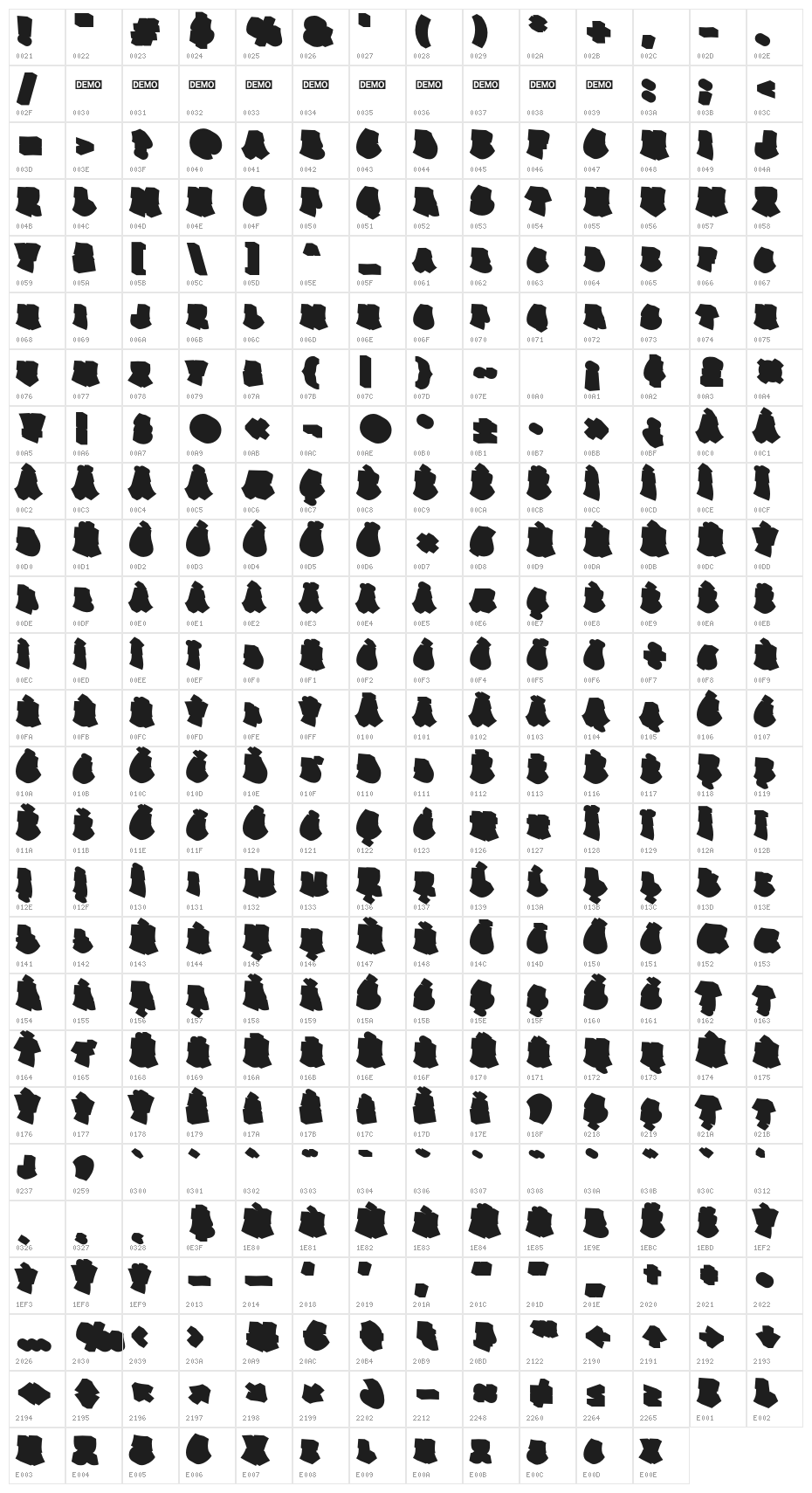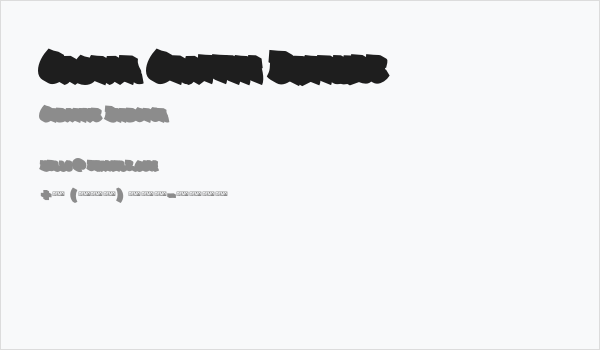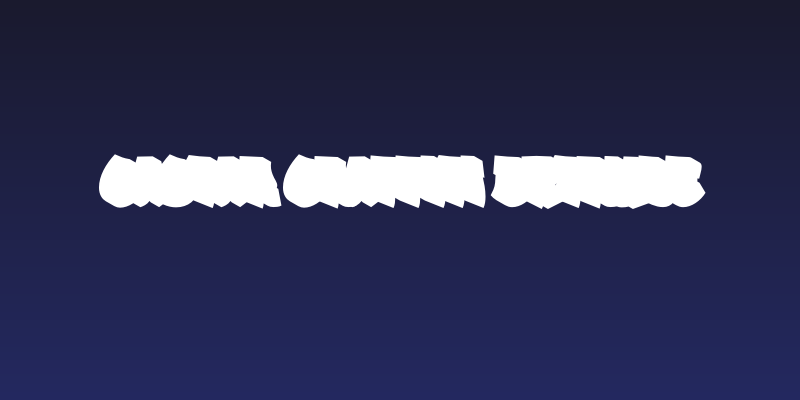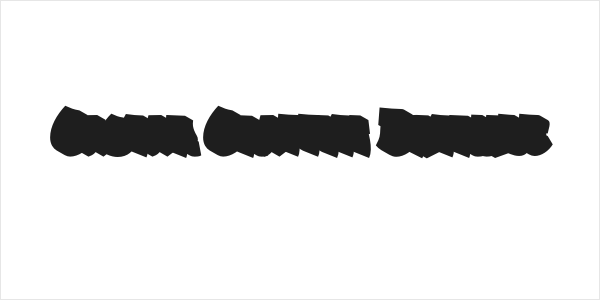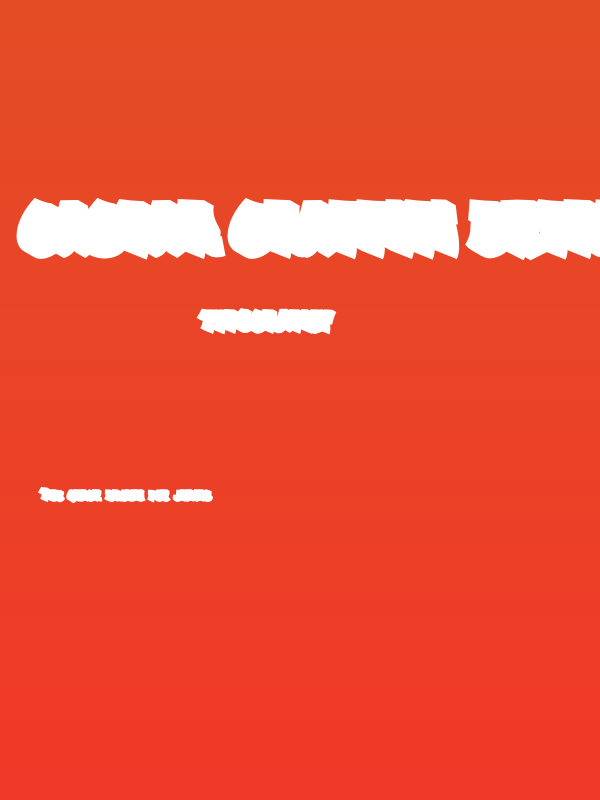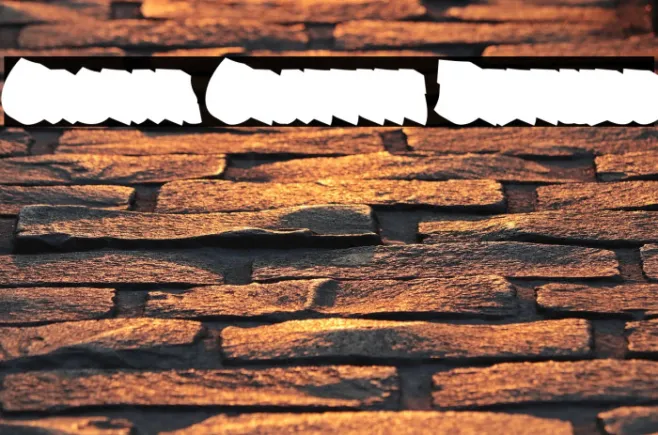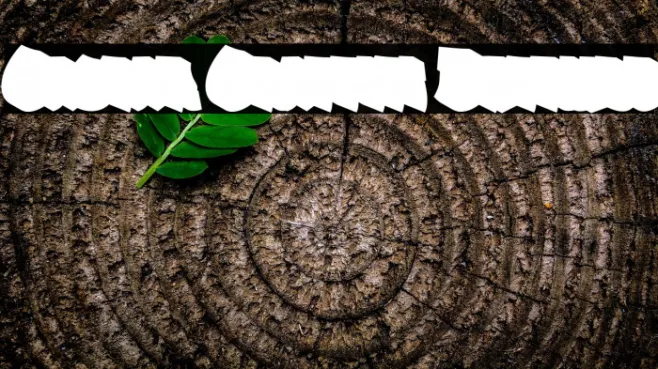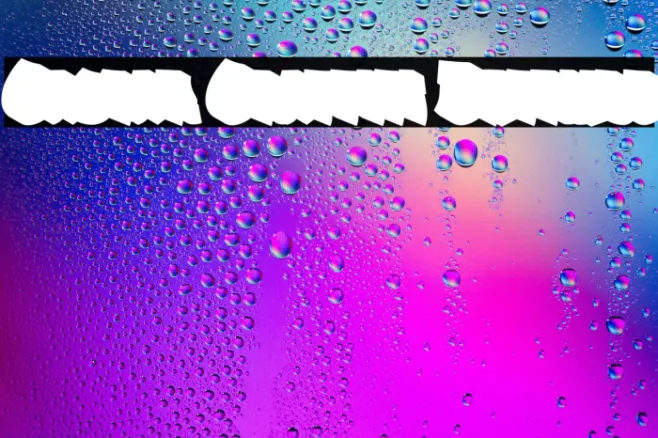
Gastar Graffiti Extrude Font
Gastar Graffiti Extrude Description
This font features a bold, graffiti-inspired style with an extruded 3D effect, giving it a dynamic and urban look. The characters are heavily stylized with sharp angles and irregular shapes, reminiscent of street art. The thick strokes and solid forms create a strong visual impact, making it ideal for attention-grabbing designs. The font maintains a consistent weight throughout, emphasizing its boldness and presence. Its unique aesthetic is perfect for projects that require a modern, edgy feel.
| Overall Style | Modern, Urban, Edgy |
| Proposed Projects | Perfect for street art posters, music album covers, urban-themed branding, and event flyers. |